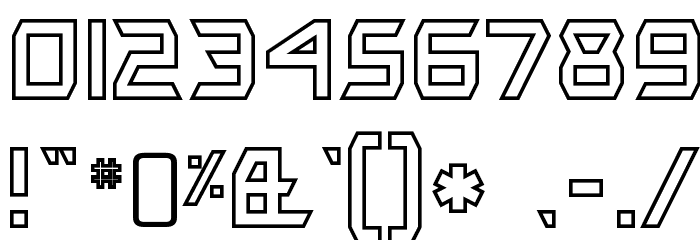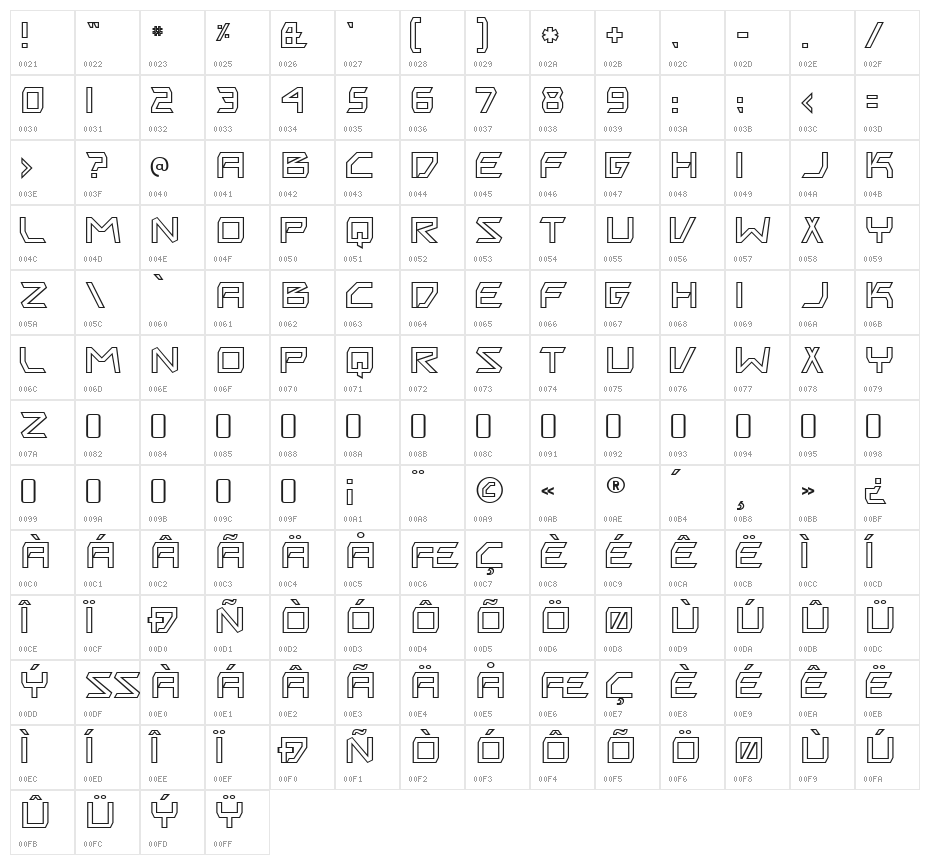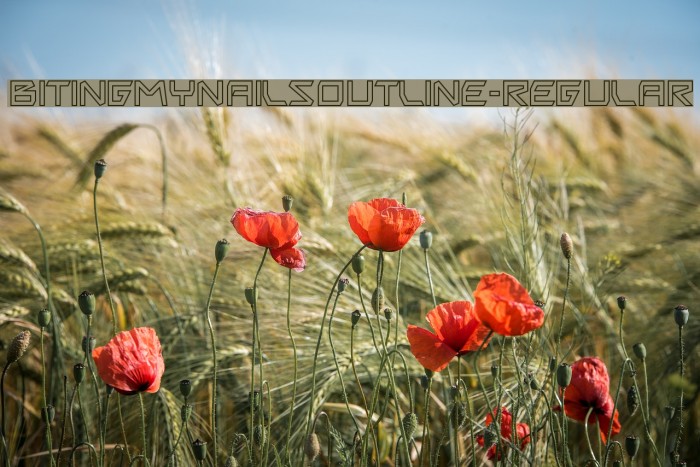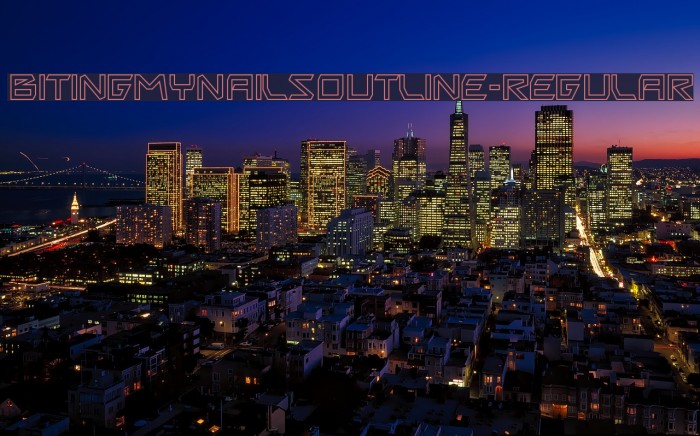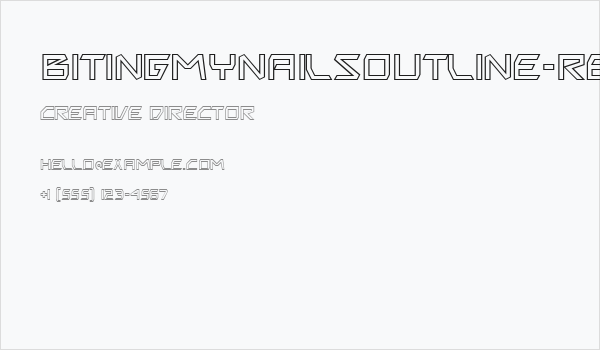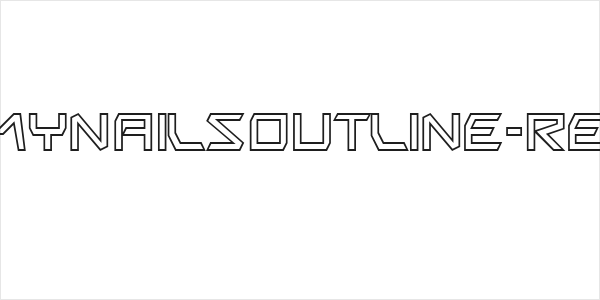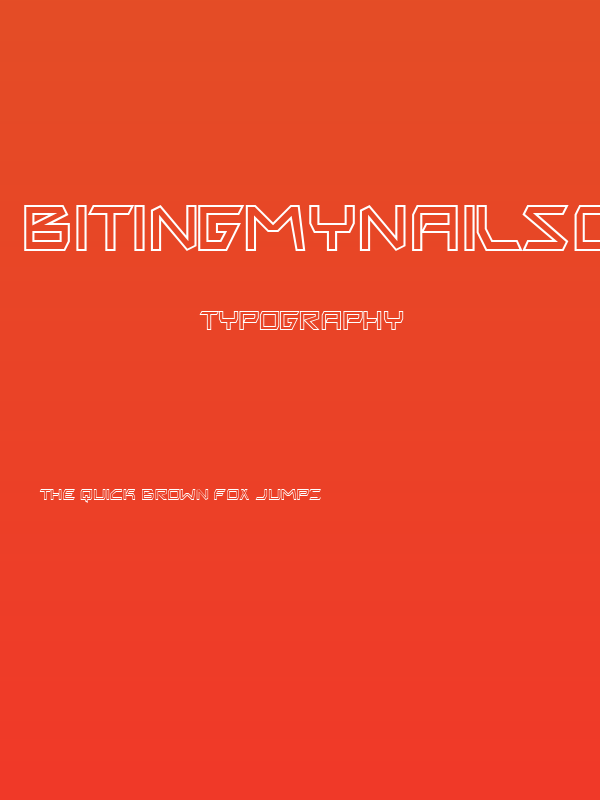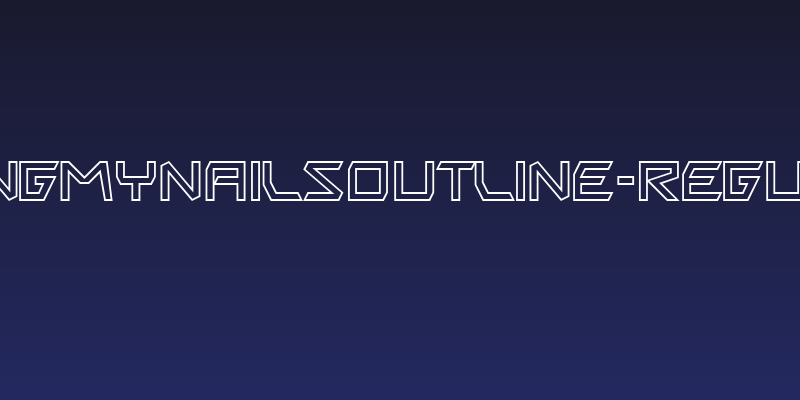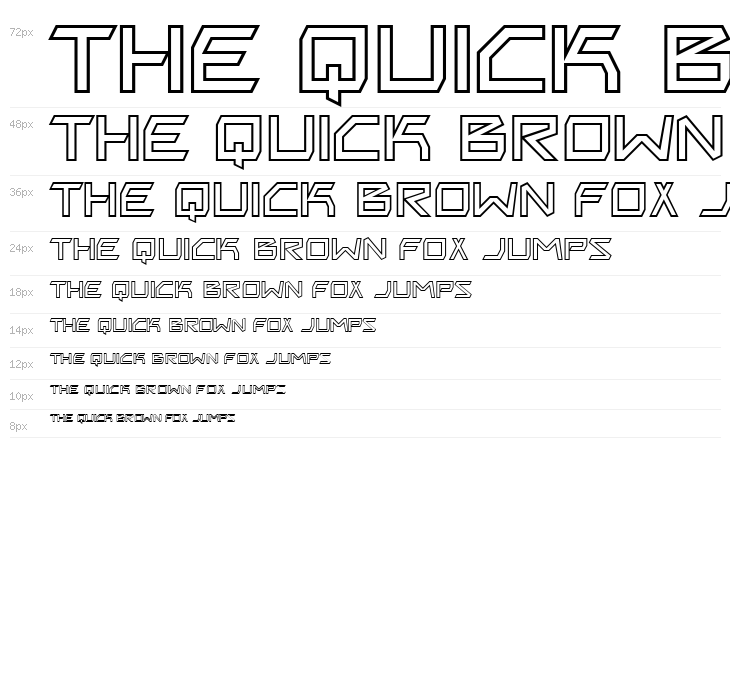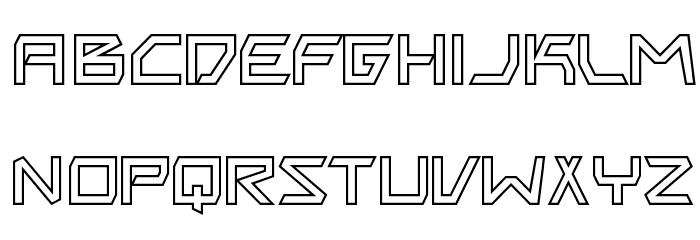
BitingMyNailsOutline-Regular Font
BitingMyNailsOutline-Regular Description
This font features a bold, geometric outline style with a futuristic and edgy appearance. The characters are constructed with sharp angles and straight lines, creating a sense of movement and modernity. The uppercase letters are uniform in height, while the numbers and special characters maintain the same angular aesthetic. The design is clean and minimalistic, making it suitable for projects that require a strong visual impact. The outline nature of the font allows for creative use of color and background, enhancing its versatility.
| Proposed Projects | Ideal for sci-fi themed designs, modern posters, video game graphics, and branding that requires a bold statement. |